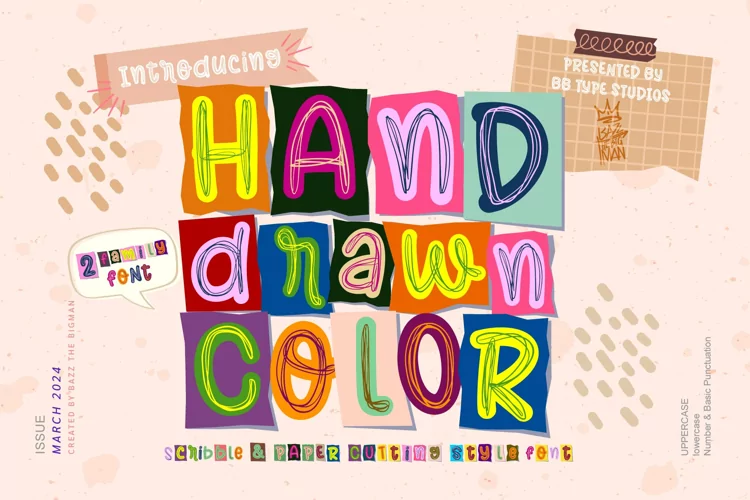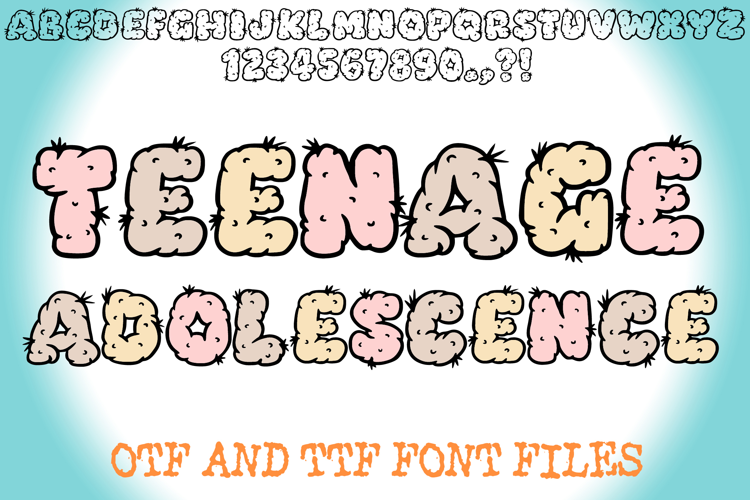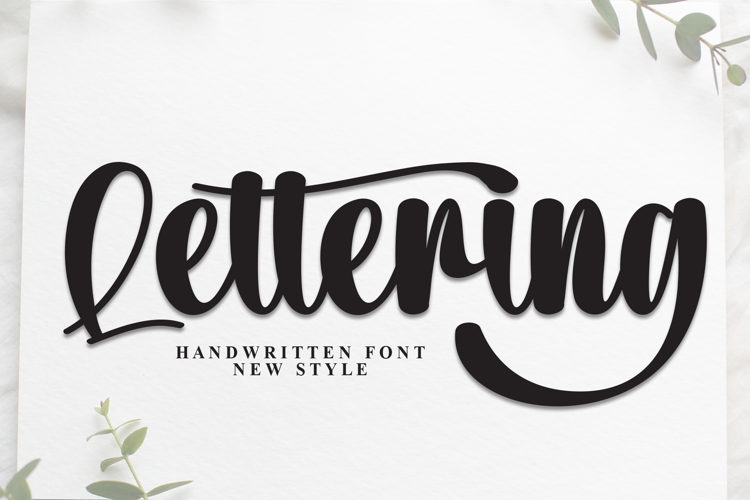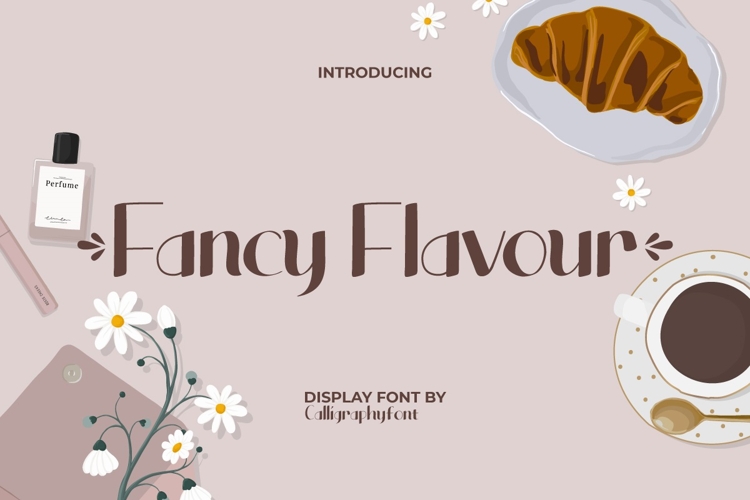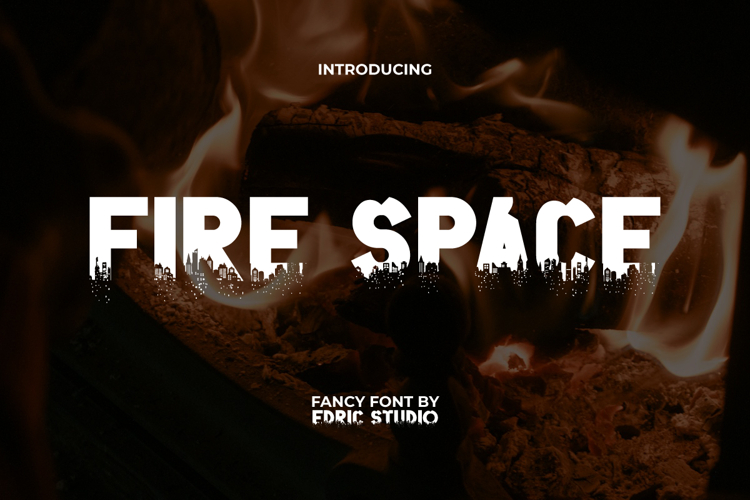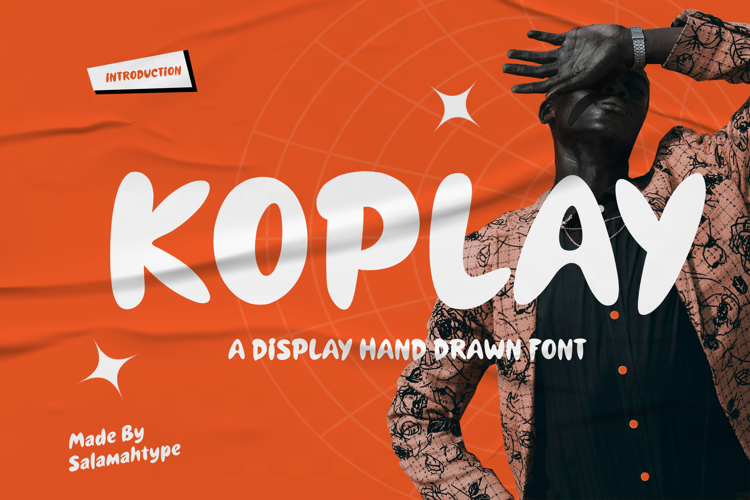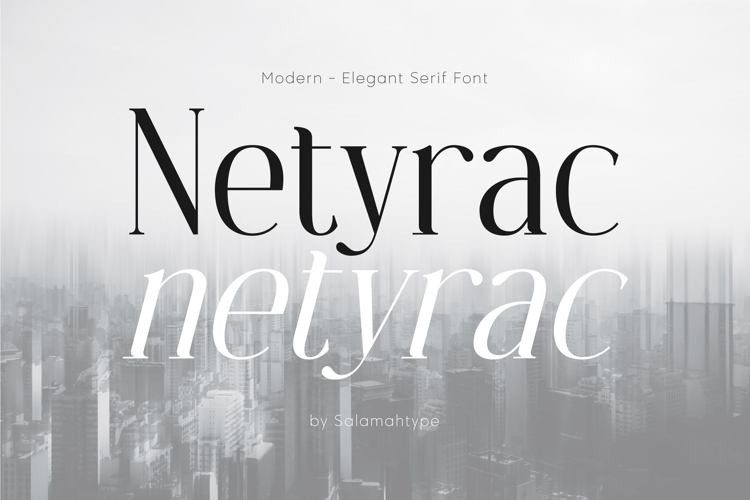
Fancy Fonts
This fancy font collection ranges from handwritten styles like Wild Autumn and the cute Feeling Fancy to Make Fancy Script and the modern, stylish Clarify. Cursive, elegant and bold faces sit side by side across over 2,000 fonts, and most include OTF and TTF files.
Fancy writing fonts or block letters: choosing by project
The Fancy Writing Fonts and Fancy Lettering sections hold the cursive and elegant scripts to reach for on wedding invitations, place cards and quote prints. When you need fancy letters that stay legible from across a room, on a shop sign or a shirt, the Fancy Block Letters Font and Fancy Bold Fonts sections trade loops for weight. Love Story and So Love lean romantic by name and fit anniversary or Valentine's projects.